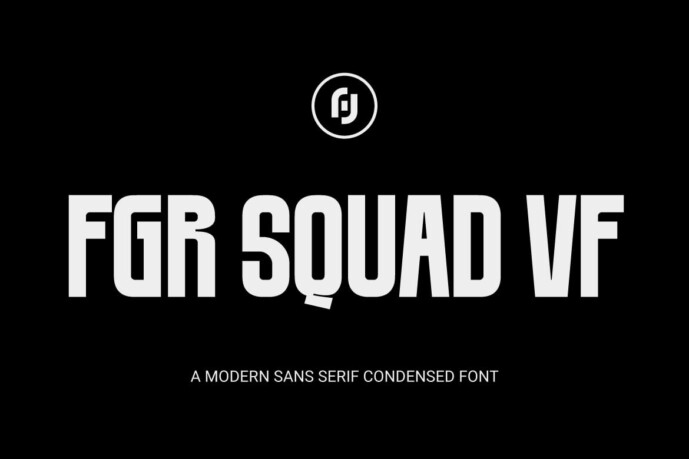
FGR SQUAD VF Font
Designer: FallenGraphic Studio
FGR SQUAD VF Font, perfectly fit for branding, logo, wedding things, greeting cards, fashion, lookbook, marketing promotion, anytime you want to look fancy elegant but still casual.